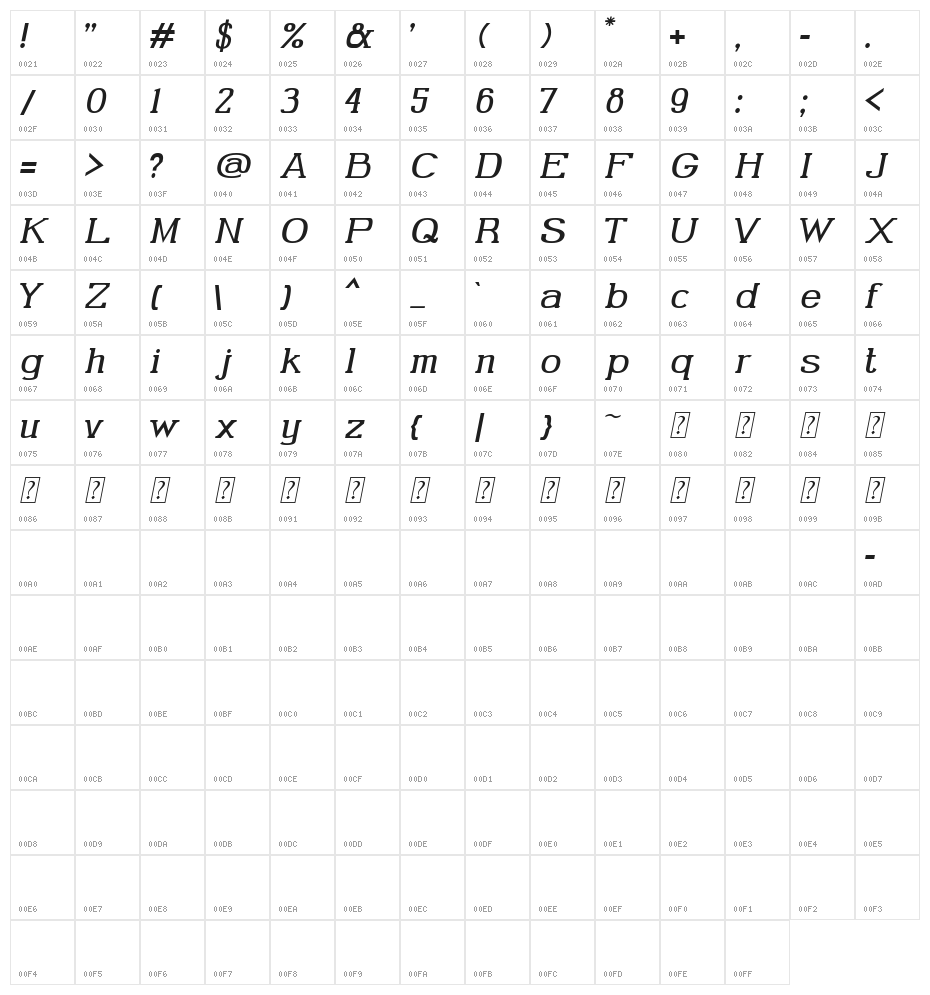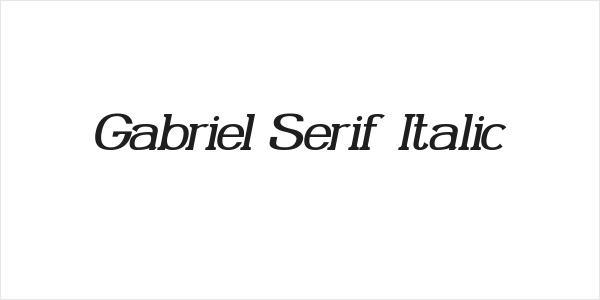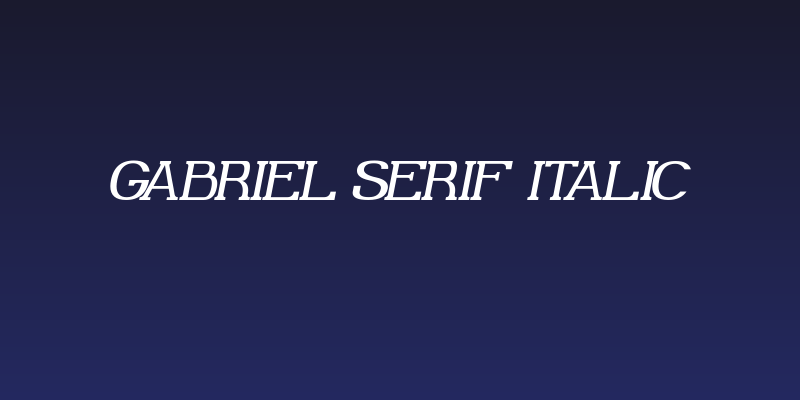
Gabriel Serif Italic Font
Gabriel Serif Italic Description
This font features a classic serif style with a distinct italic slant, giving it an elegant and sophisticated appearance. The serifs are pronounced, adding a touch of formality and tradition to the characters. The italicization provides a sense of motion and fluidity, making it suitable for dynamic and expressive text. The uppercase letters are tall and commanding, while the lowercase letters maintain a balanced and harmonious flow. The numerals are clear and legible, with a consistent style that complements the alphabetic characters. Special characters are well-integrated, maintaining the overall aesthetic of the font.
| Proposed Projects | Ideal for use in formal invitations, elegant branding, editorial design, and classic book covers. |